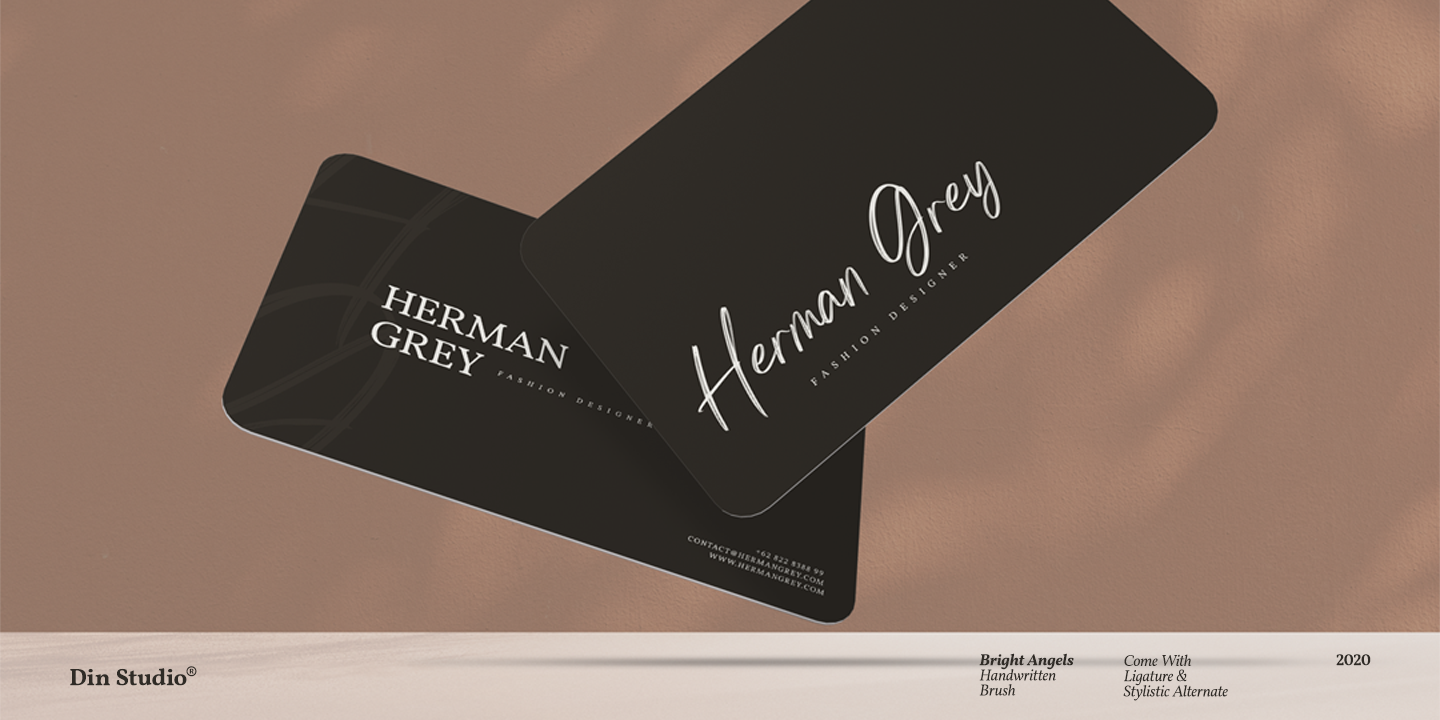
Bright Angels Font Free Download is a beautifully crafted script typeface that brings elegance, charm, and a sense of grace to your design projects. With its flowing curves, delicate strokes, and calligraphic flair, this font is the perfect choice for wedding invitations, branding, greeting cards, social media graphics, and more.
This typeface captures the essence of handwritten calligraphy, offering a sophisticated yet personal touch. Bright Angels has been meticulously designed to ensure a smooth, flowing look with excellent readability and graceful ligatures that make your typography look professional and heartfelt at the same time.
The font includes stylistic alternates, swashes, and multilingual support, making it versatile for both personal and commercial use. However, remember that if you intend to use Bright Angels Font for commercial purposes—like branding, packaging, or advertising—you must purchase the proper license. The free version is only for testing and personal projects.